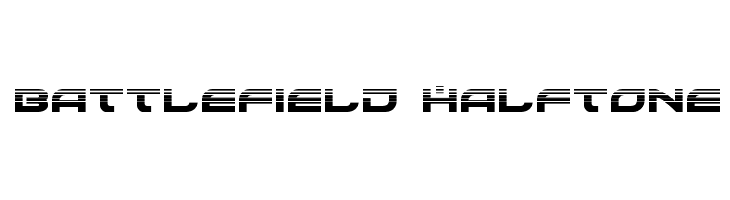
A bold, futuristic font with a halftone effect and geometric design.
A bold, geometric font with a halftone effect and segmented appearance.
A bold, futuristic font with a halftone effect and geometric shapes.
A bold, geometric font with a halftone effect, featuring strong, angular forms and high contrast.